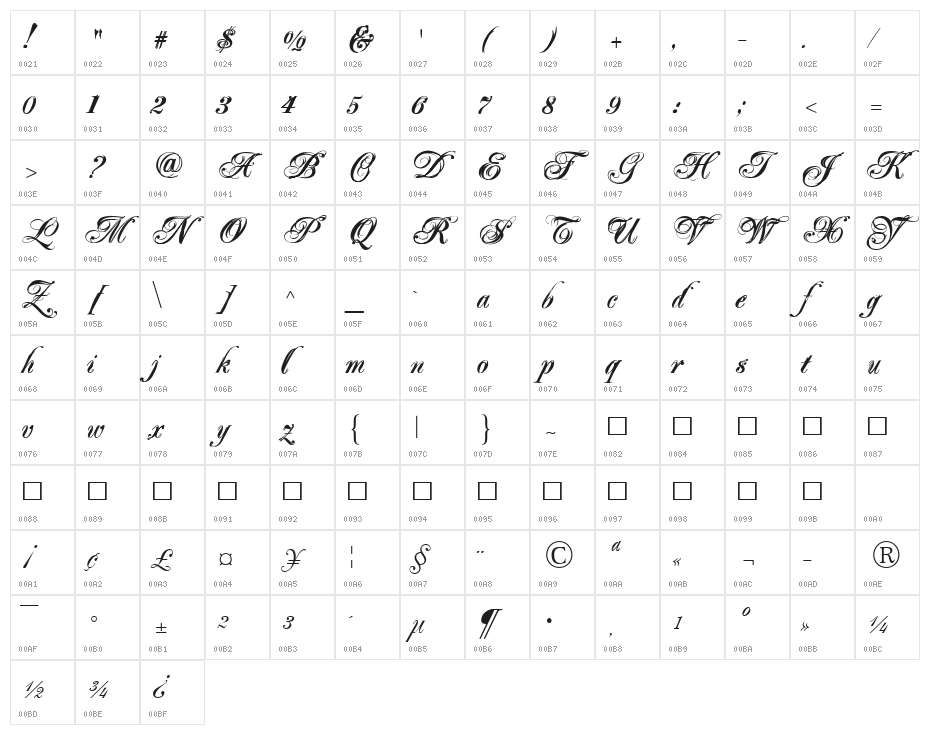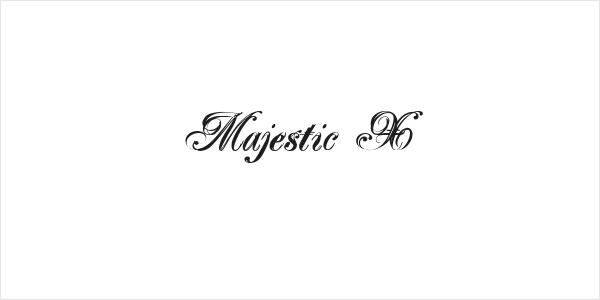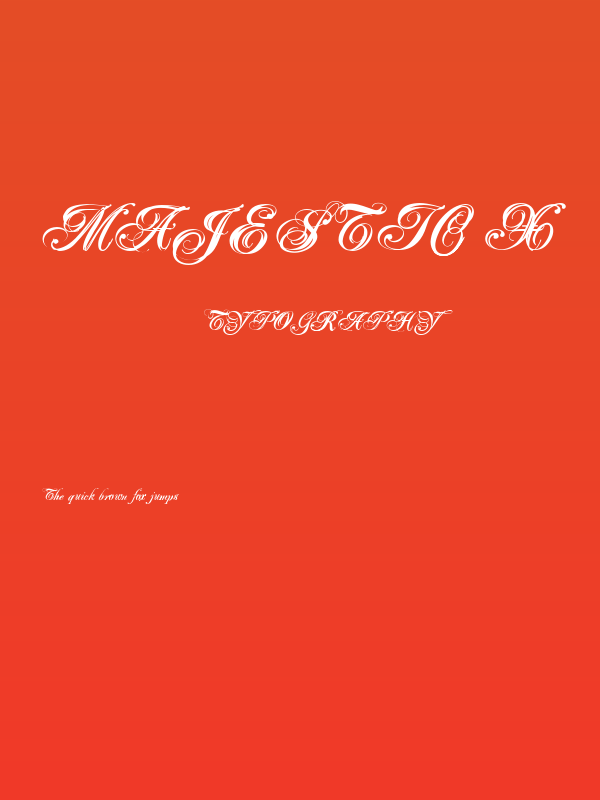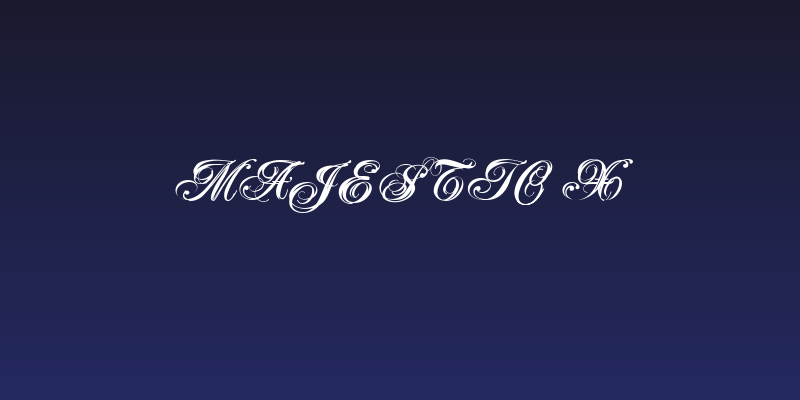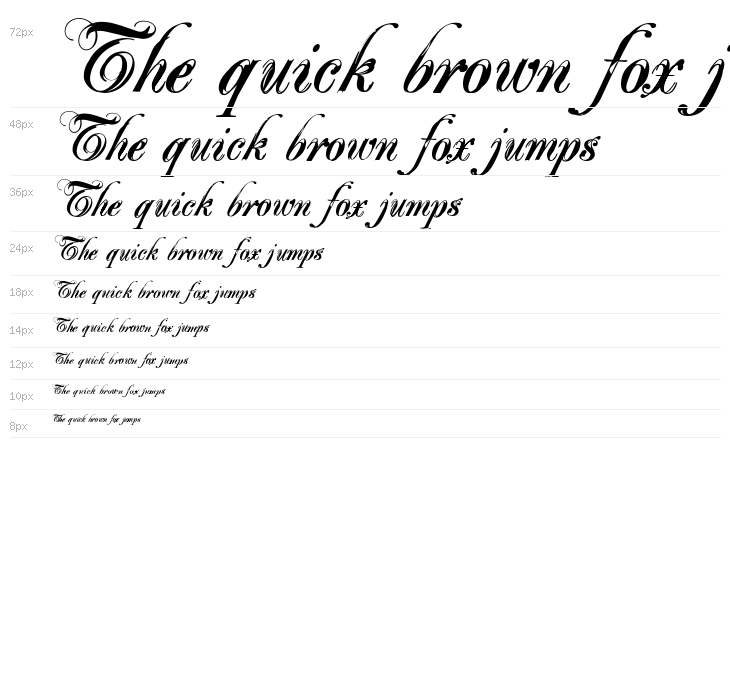
Majestic X Font
Majestic X Description
This font exudes elegance and sophistication with its intricate and flowing script style. The uppercase letters are adorned with elaborate swirls and flourishes, giving them a decorative and ornamental appearance. The lowercase letters maintain a smooth and connected cursive form, enhancing the font's graceful aesthetic. The numerals are bold and slightly condensed, matching the overall ornate theme. Special characters are crafted with the same attention to detail, featuring unique embellishments that add to the font's luxurious feel. This font is perfect for projects that require a touch of class and refinement.
Use CaseLogos, Invitations, Headlines
Proposed ProjectsIdeal for wedding invitations, luxury branding, high-end product packaging, and elegant event signage.